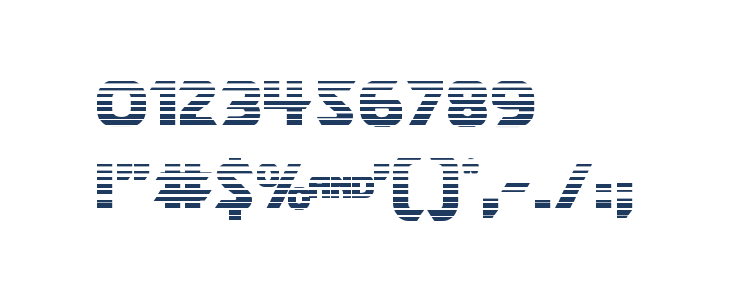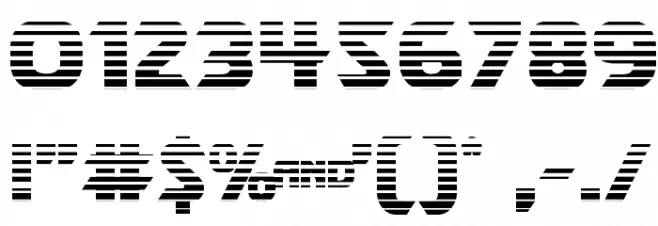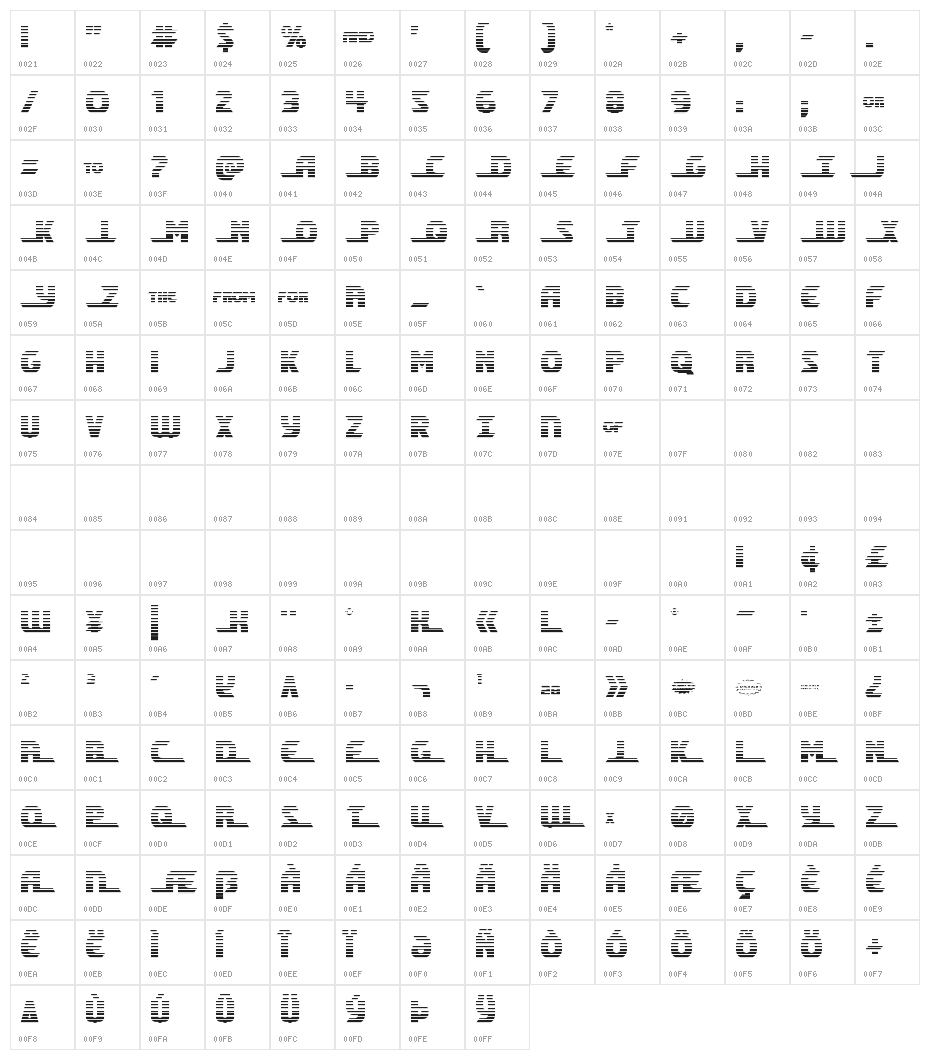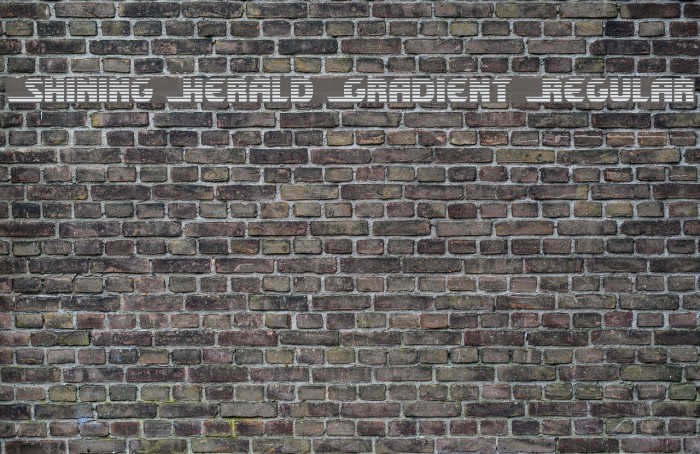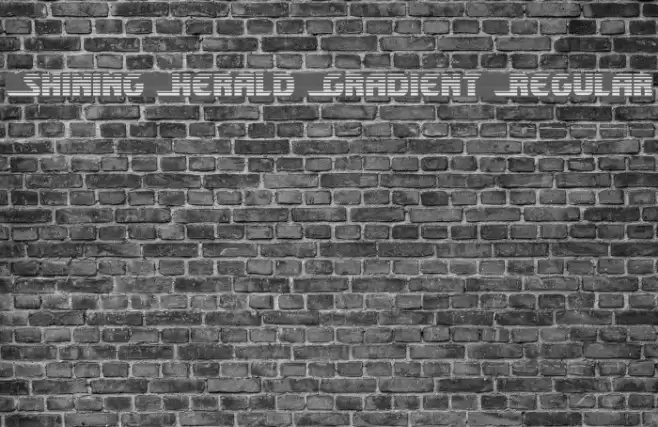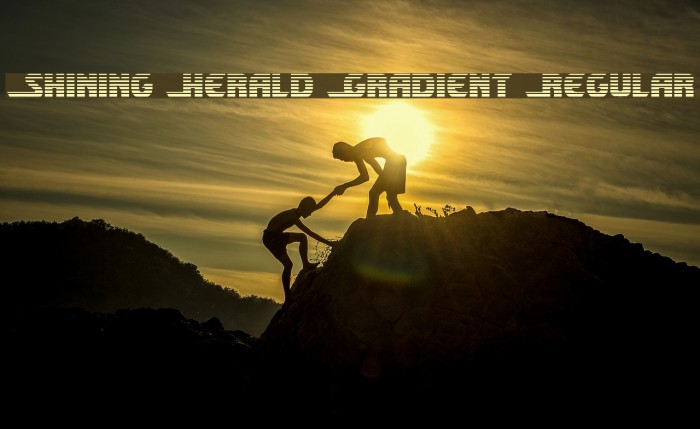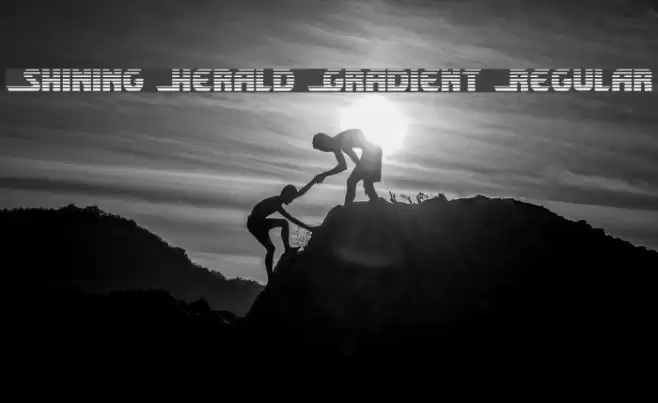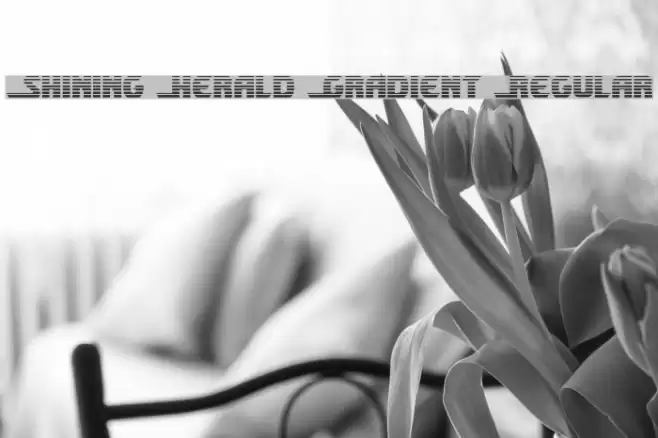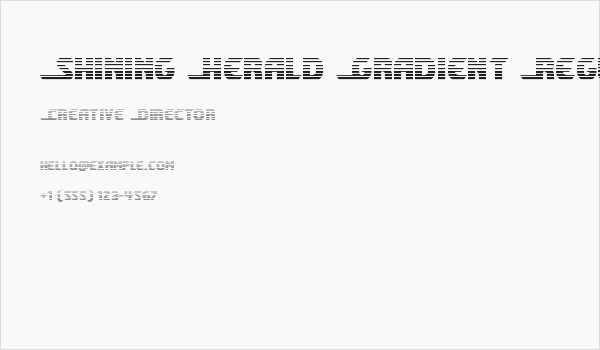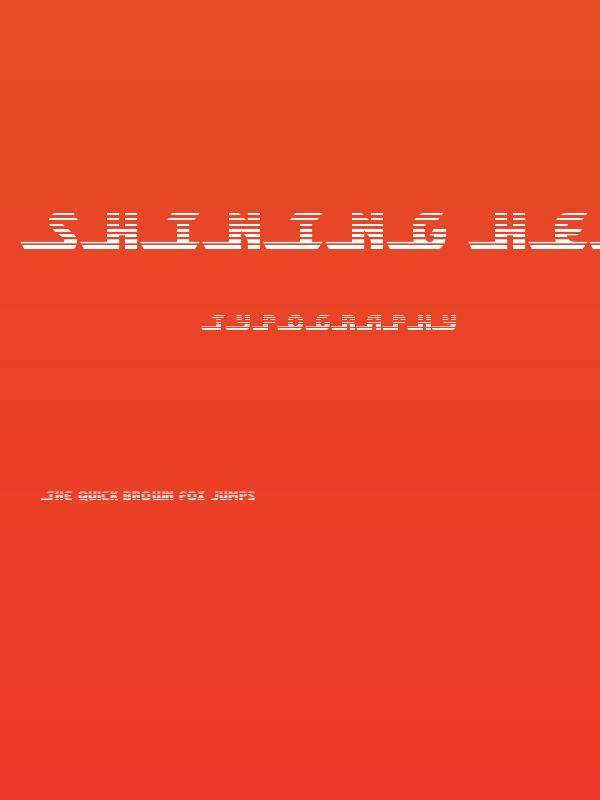
Shining Herald Gradient Regular Font
Shining Herald Gradient Regular Description
This font features a unique striped pattern that gives it a dynamic and modern appearance. Each character is composed of horizontal lines that create a gradient effect, adding depth and visual interest. The uppercase and lowercase letters maintain a consistent style, with bold, geometric shapes that are slightly condensed. The numerals and special characters follow the same design, ensuring uniformity across all elements. This font's distinct style makes it stand out, making it ideal for projects that require a bold and eye-catching typeface.
| Proposed Projects | Ideal for branding, posters, headlines, and any design that requires a striking and modern typeface. |